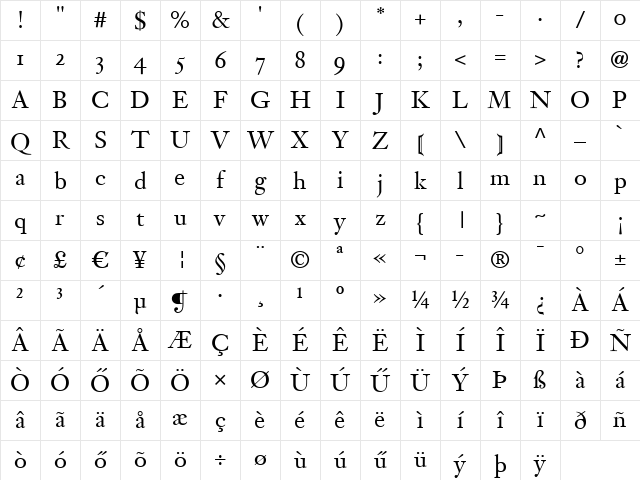
Complete Tyrnavia Medium glyph index. Displaying only characters natively supported by Tyrnavia Medium font.
Tyrnavia is a composed and adaptable typeface that performs quietly and consistently across a wide range of design contexts.